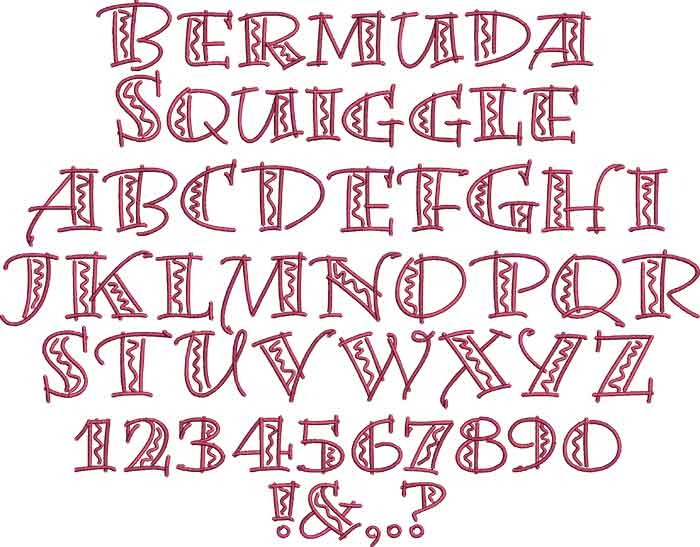
BX Embroidery Font: Bermuda Squiggle
BX Embroidery Font: Bermuda Squiggle is a fun, decorative, fancy serif machine embroidery font that includes A-Z, a-z, 0-9, and punctuation. It comes in 5 sizes.
Bermuda Squiggle is a fun, decorative, fancy serif machine embroidery font that includes A-Z, a-z, 0-9 and the following punctuation: !&,.? (67 total characters per size). It comes in 5 sizes.
Each character in this alphabet is individually manually digitized; we do not use a TrueType to Stitches conversion utility to create our fonts. Additionally, stitch attributes such as stitch type, density, compensation, and underlay are optimized for each size available. Choose the size closest to what you need. Shrinking the smallest size is not recommended.
Our fonts were manually digitized; we do not use a TrueType to Stitches conversion utility to create our fonts. Plus, stitch attributes such as density, compensation, and underlay are optimized for each size available.